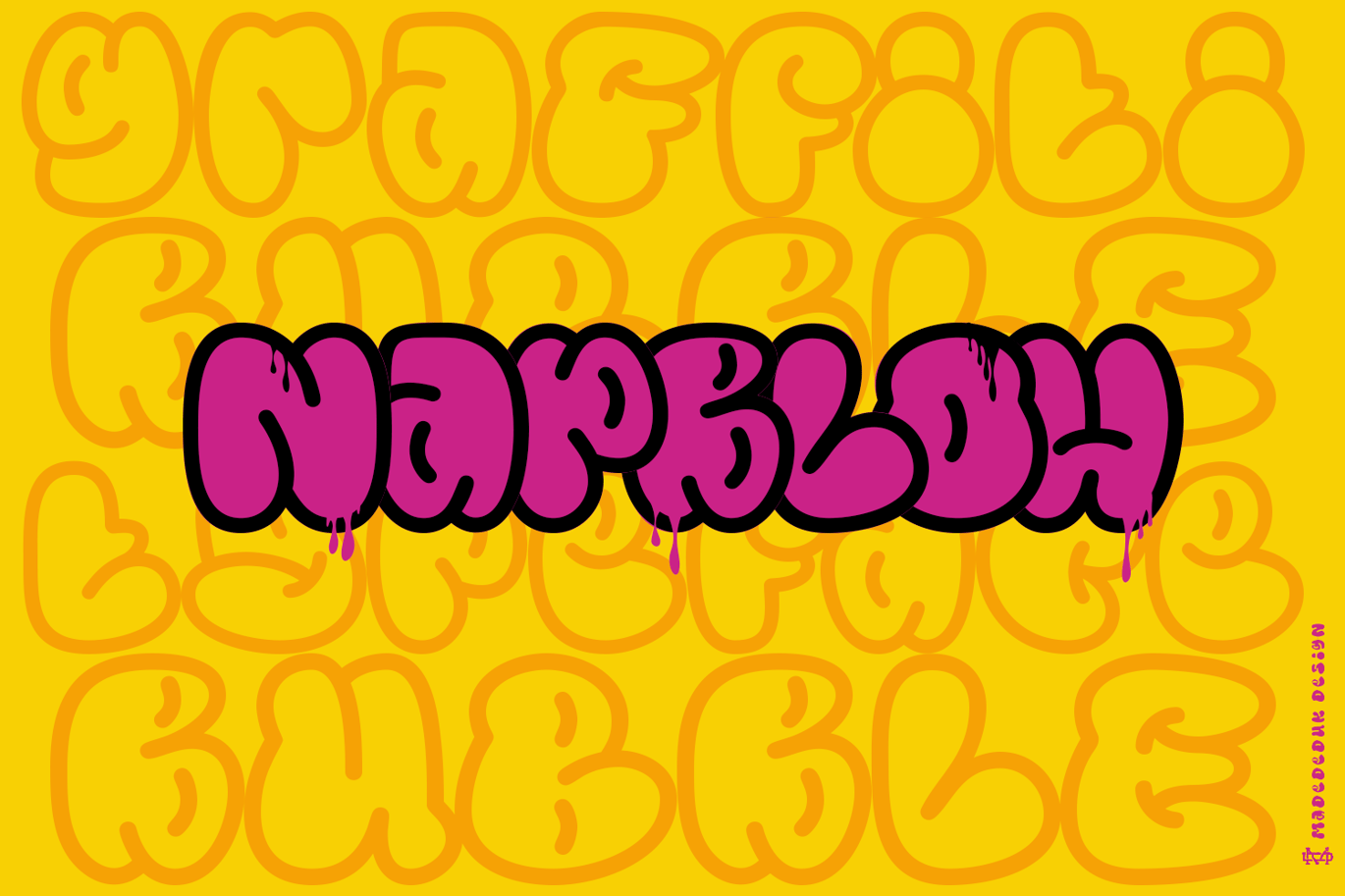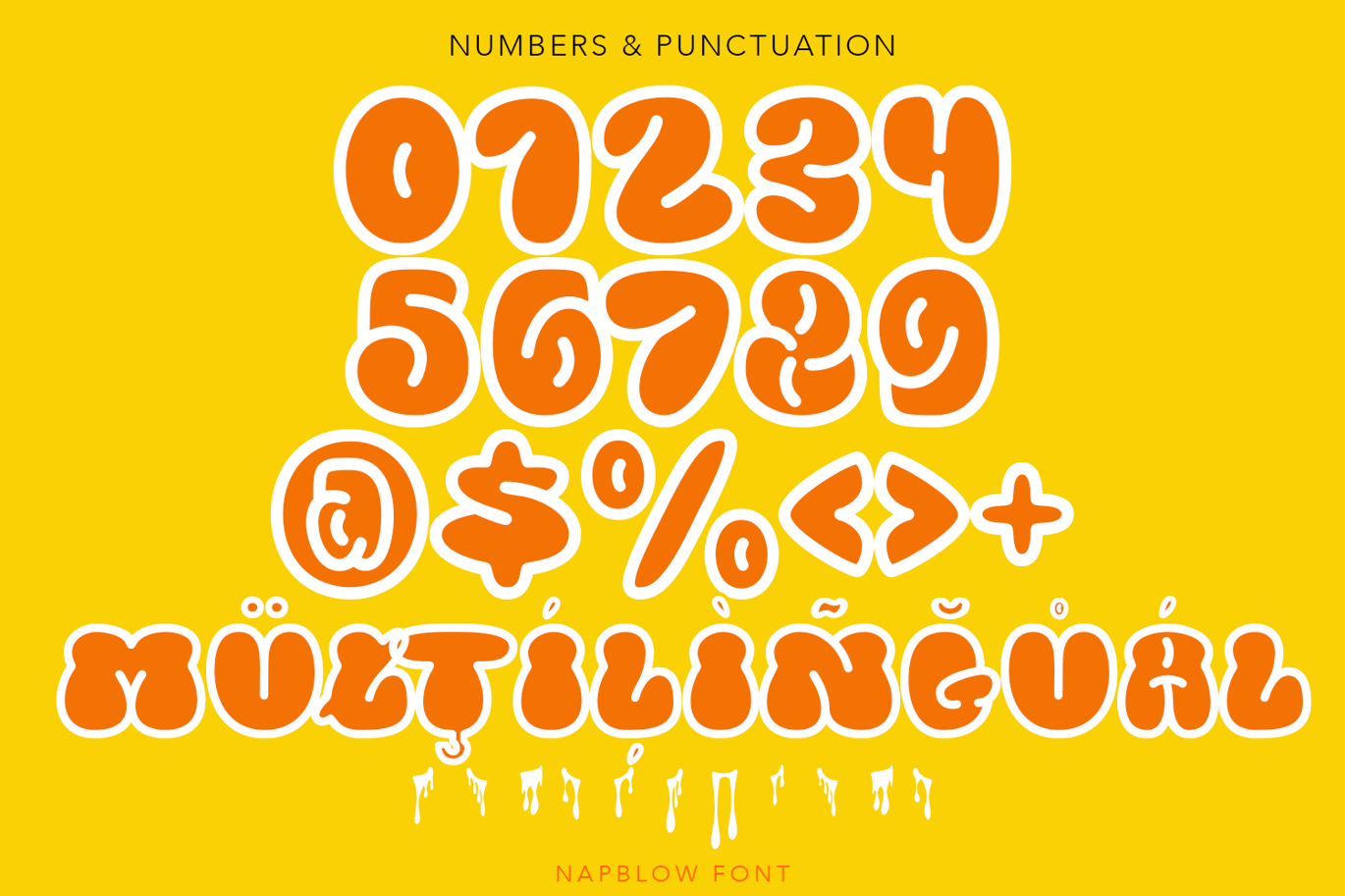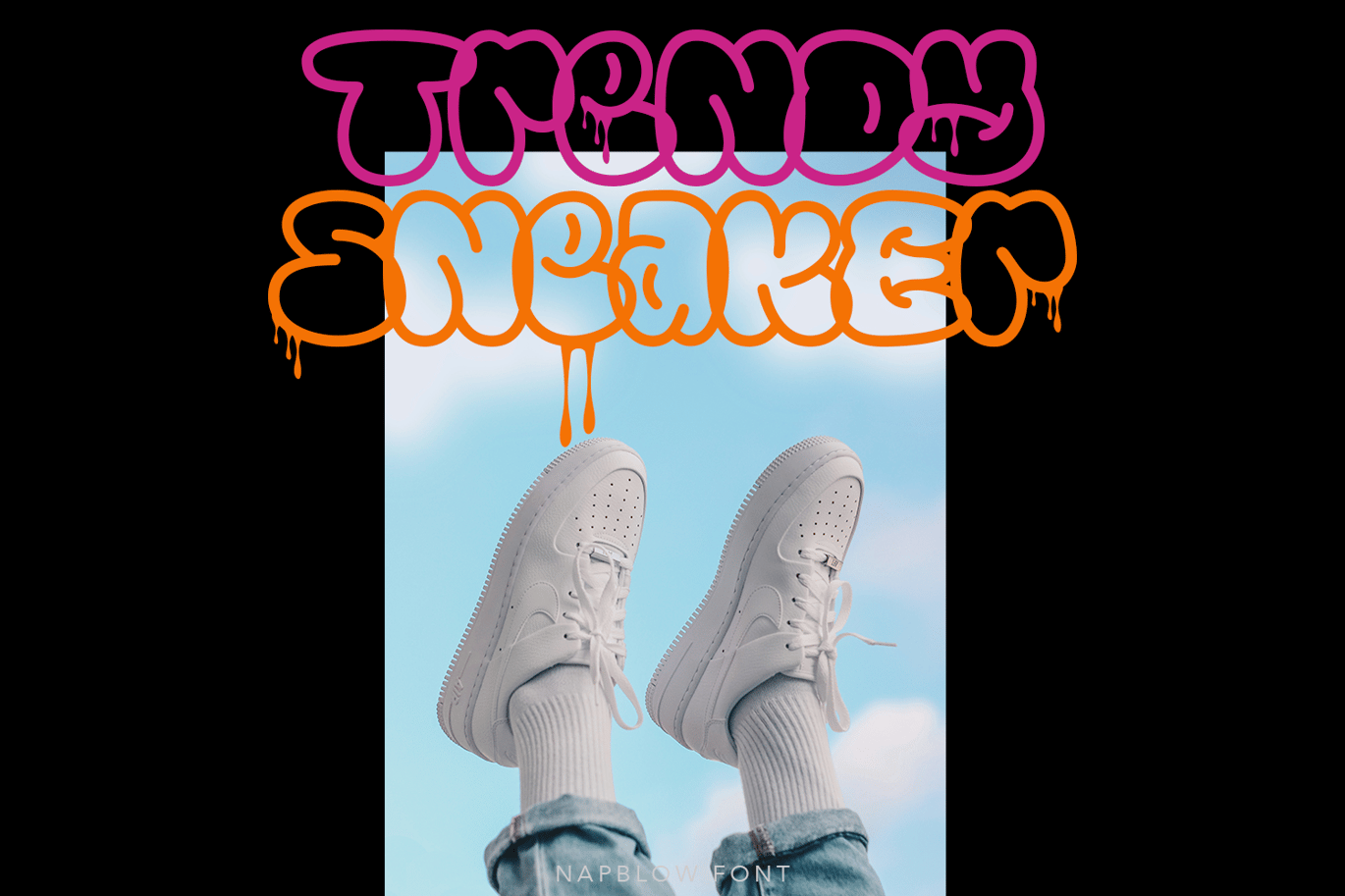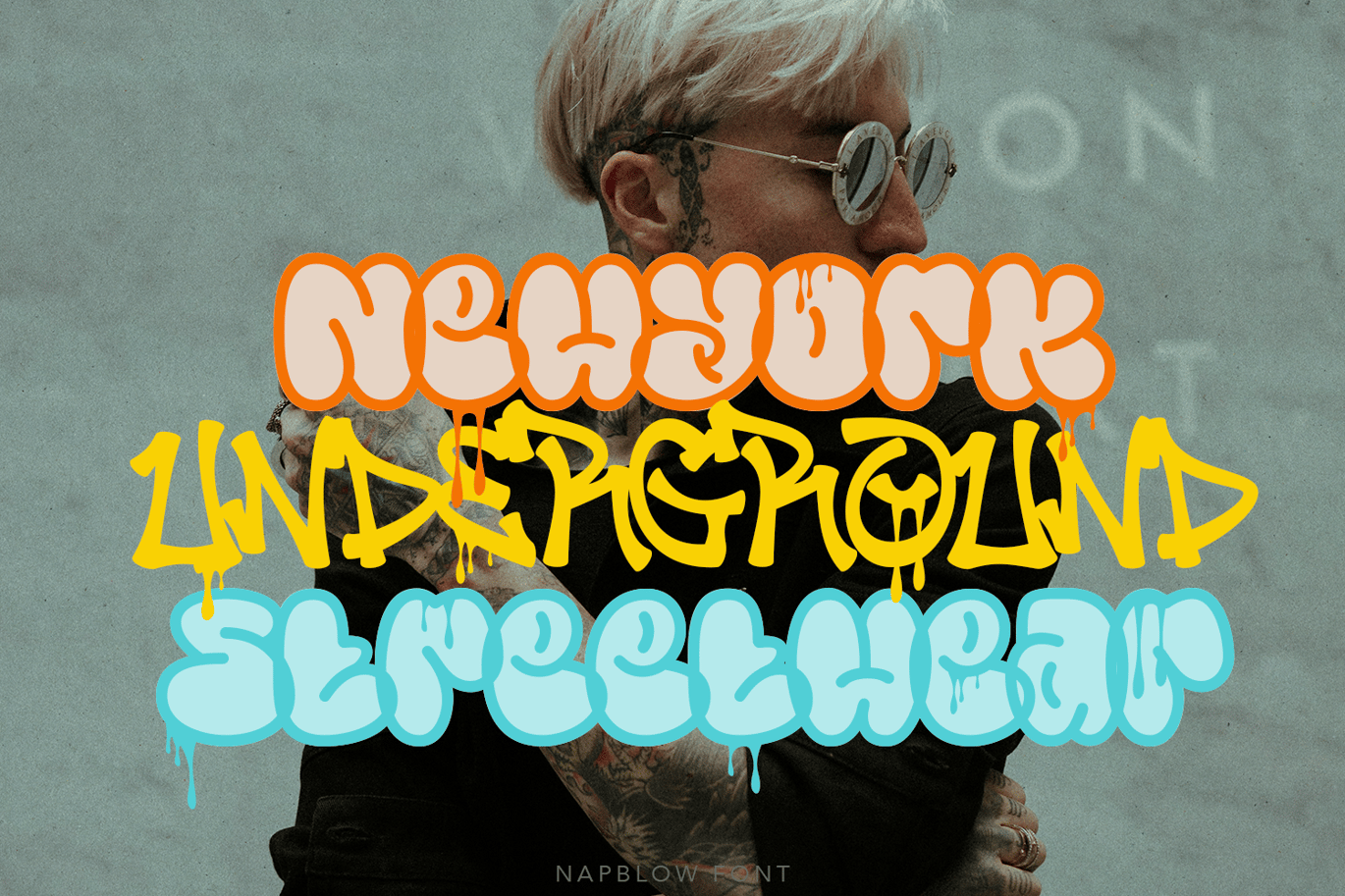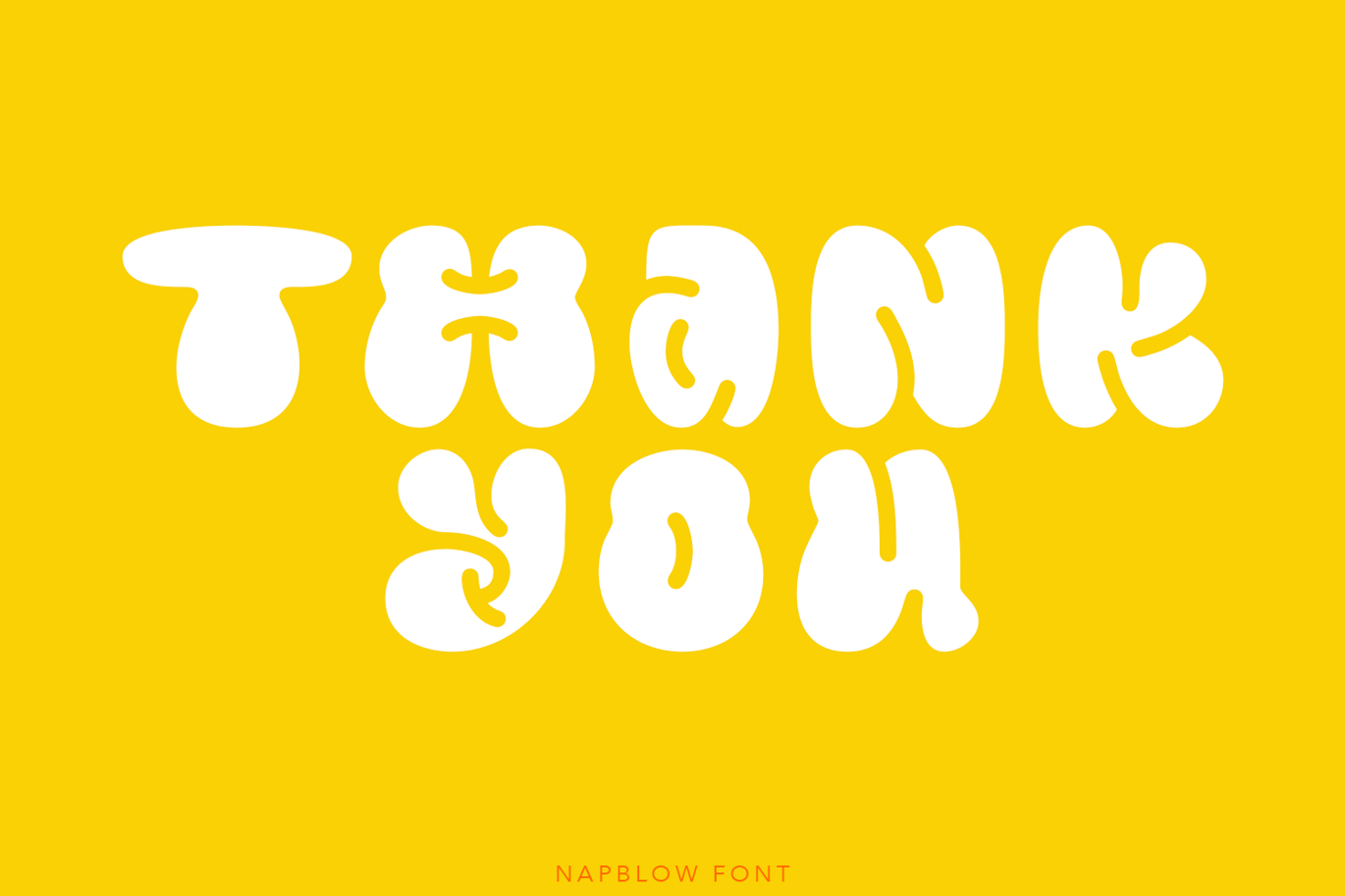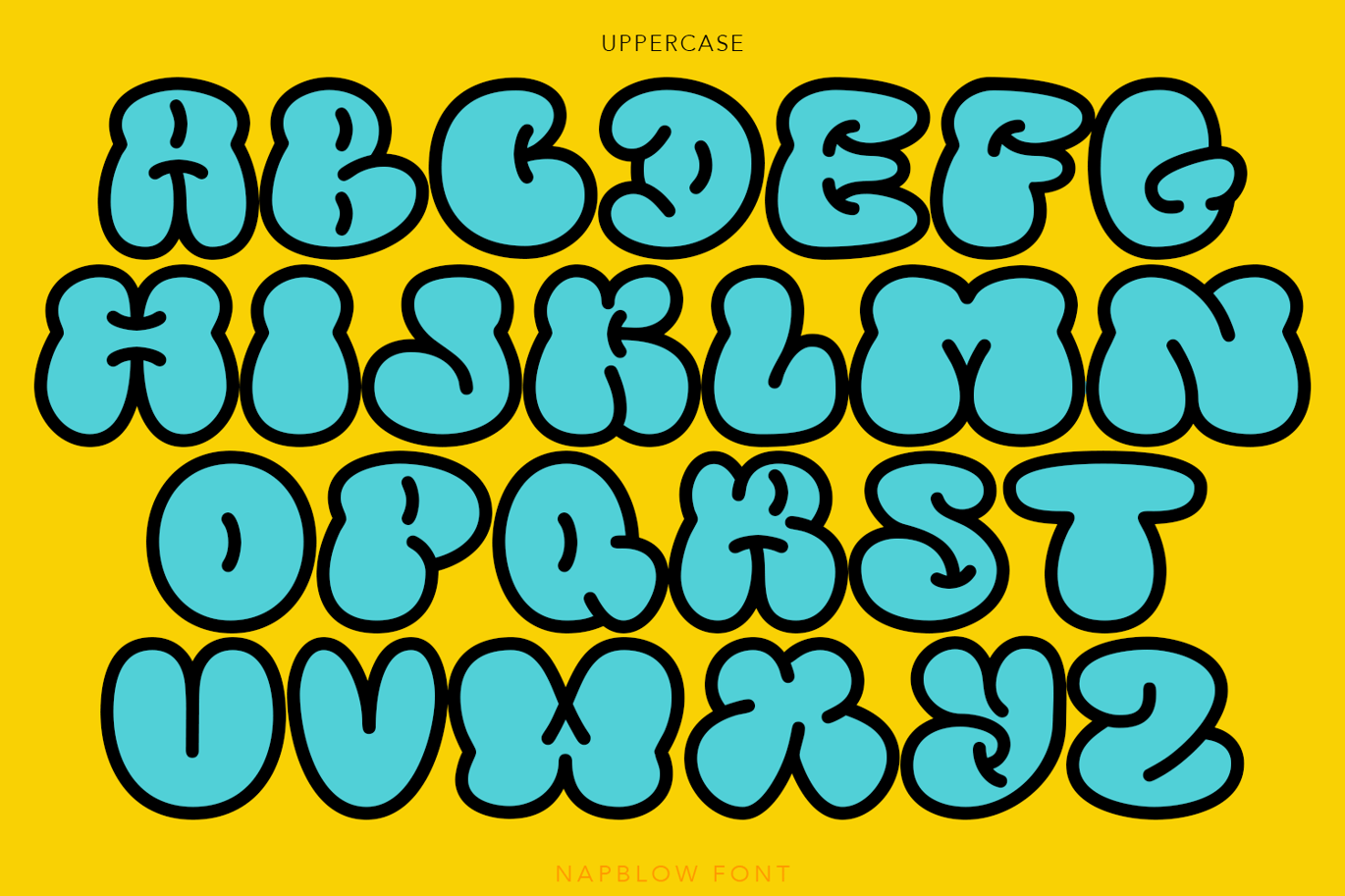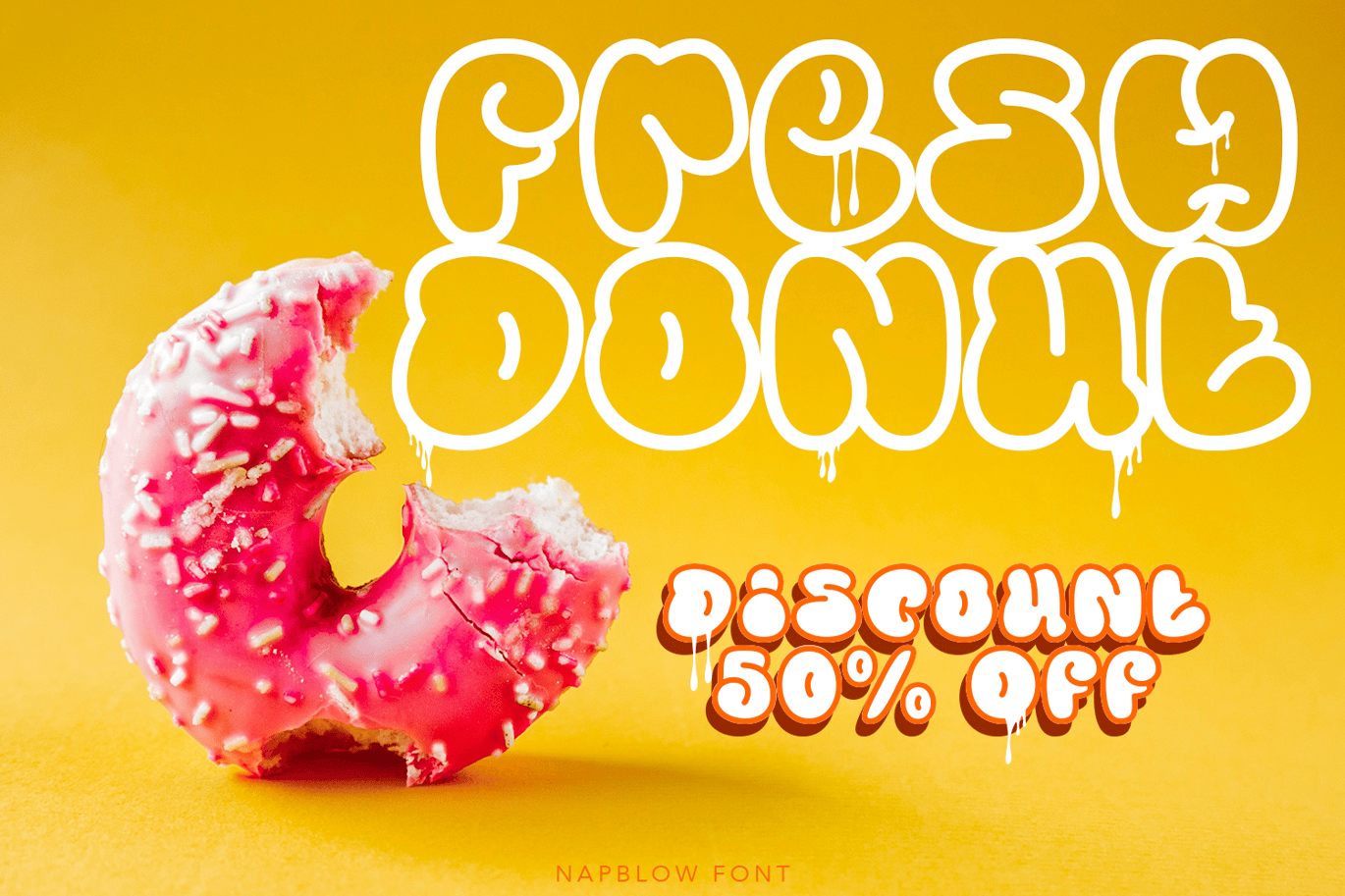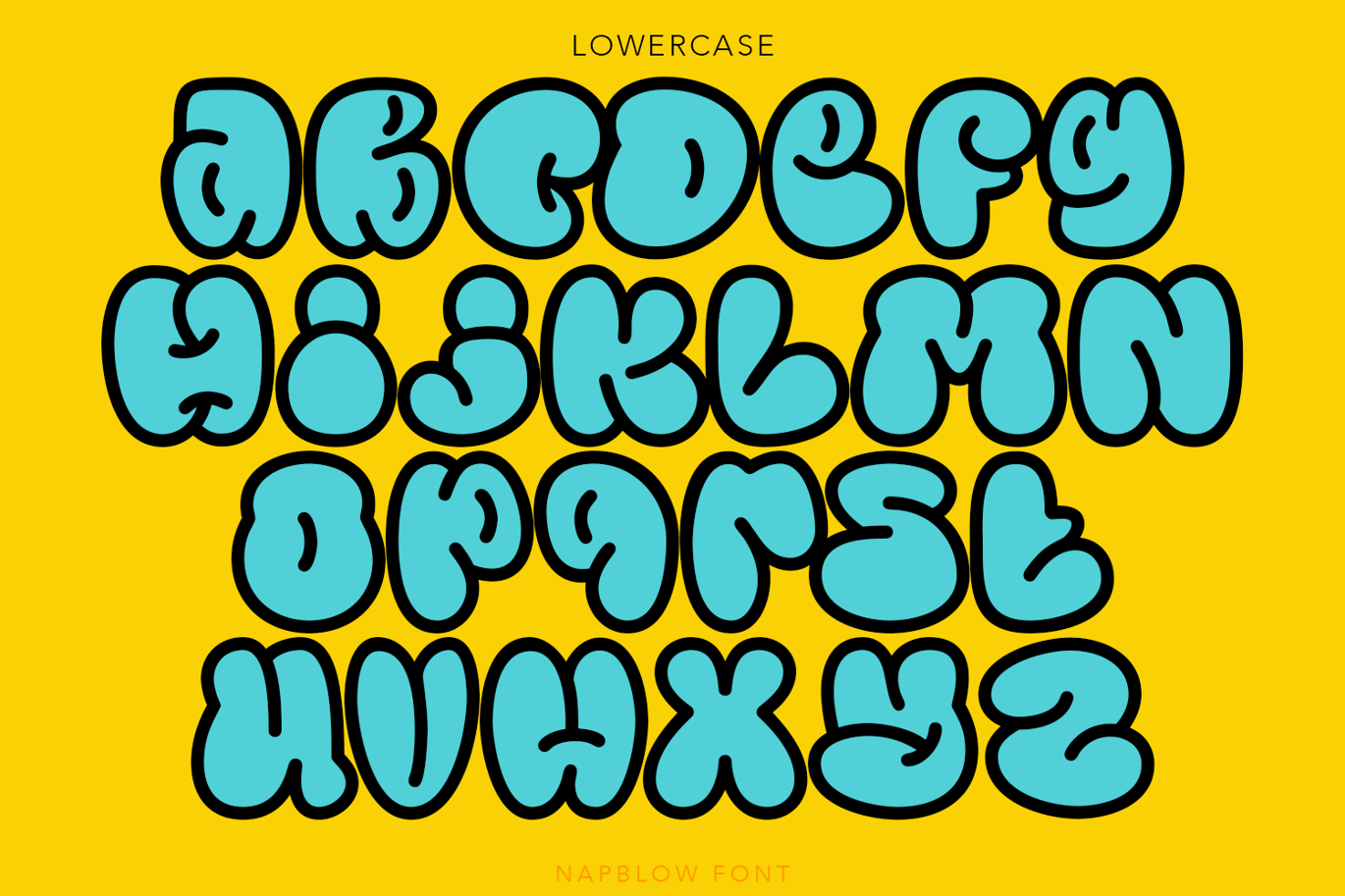
Napblow Graffiti Font
Napblow is a bubble graffiti font inspired from 90s street hip hop style. Napblow come with two style outline and solid, clear and unique you can explore and combine creating rhythm for comfortable reading. This font perfect for any projects, such logotype, stickers, packaging design, headlines, brand identity, posters, magazines, books, Instagram, websites, and many more.